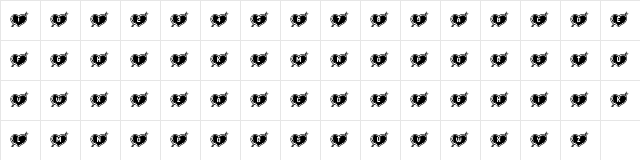
Hearts and Arrows Regular Font Preview
Hearts and Arrows Regular
Design Context for Hearts and Arrows Typeface
Hearts and Arrows is a composed and adaptable typeface that performs quietly and consistently across a wide range of design contexts.